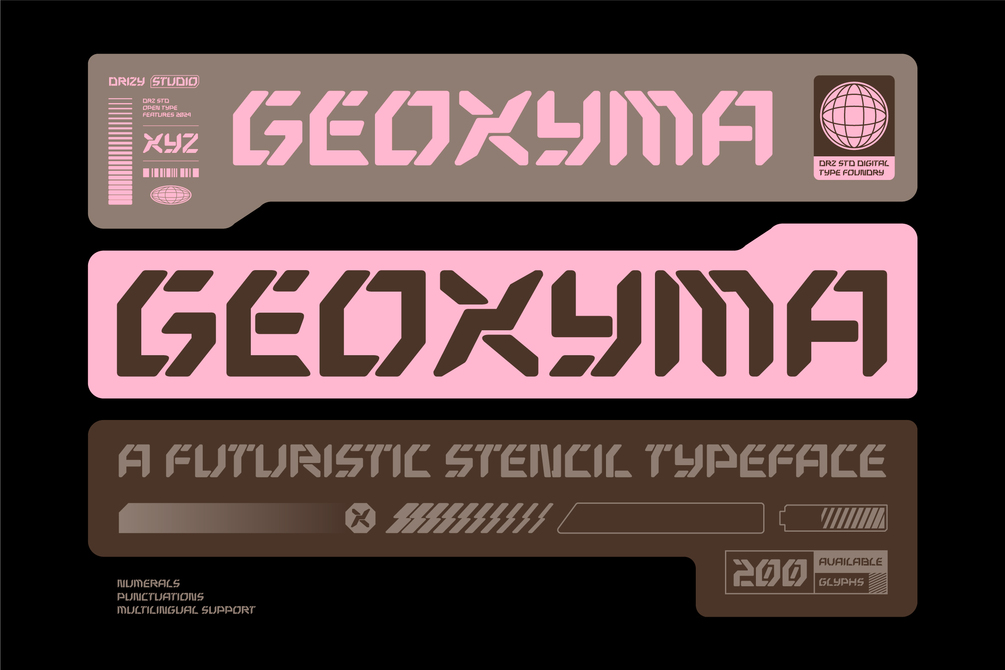
Geoxyma – Futuristic Stencil Font
Geoxyma – Futuristic Stencil Font is the perfect choice for any Esports Design project. With it’s bold, modern stencil cuts and sleek futuristic vibes, Geoxyma captures the energy and intensity of competitive gaming. Designed to stand out, this font combines sharp edges with dynamic curves, creating a powerful visual impact that complements logos, team branding, merchandise, and digital overlays. Whether you’re crafting a team emblem or streaming layout, Geoxyma delivers a professional yet edgy aesthetic that resonates with the spirit of esports. It’s more than just a font, it’s a statement of dominance in the gaming arena.